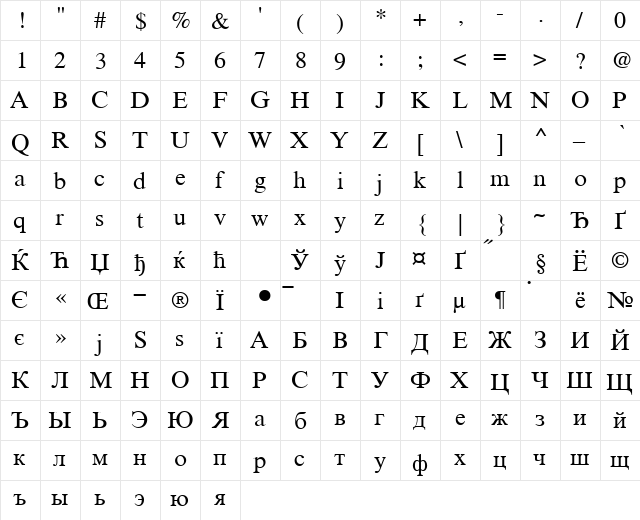
VNI Russia Regular
Design Context for VNI Russia Typeface
VNI Russia is a composed and adaptable typeface that performs quietly and consistently across a wide range of design contexts.